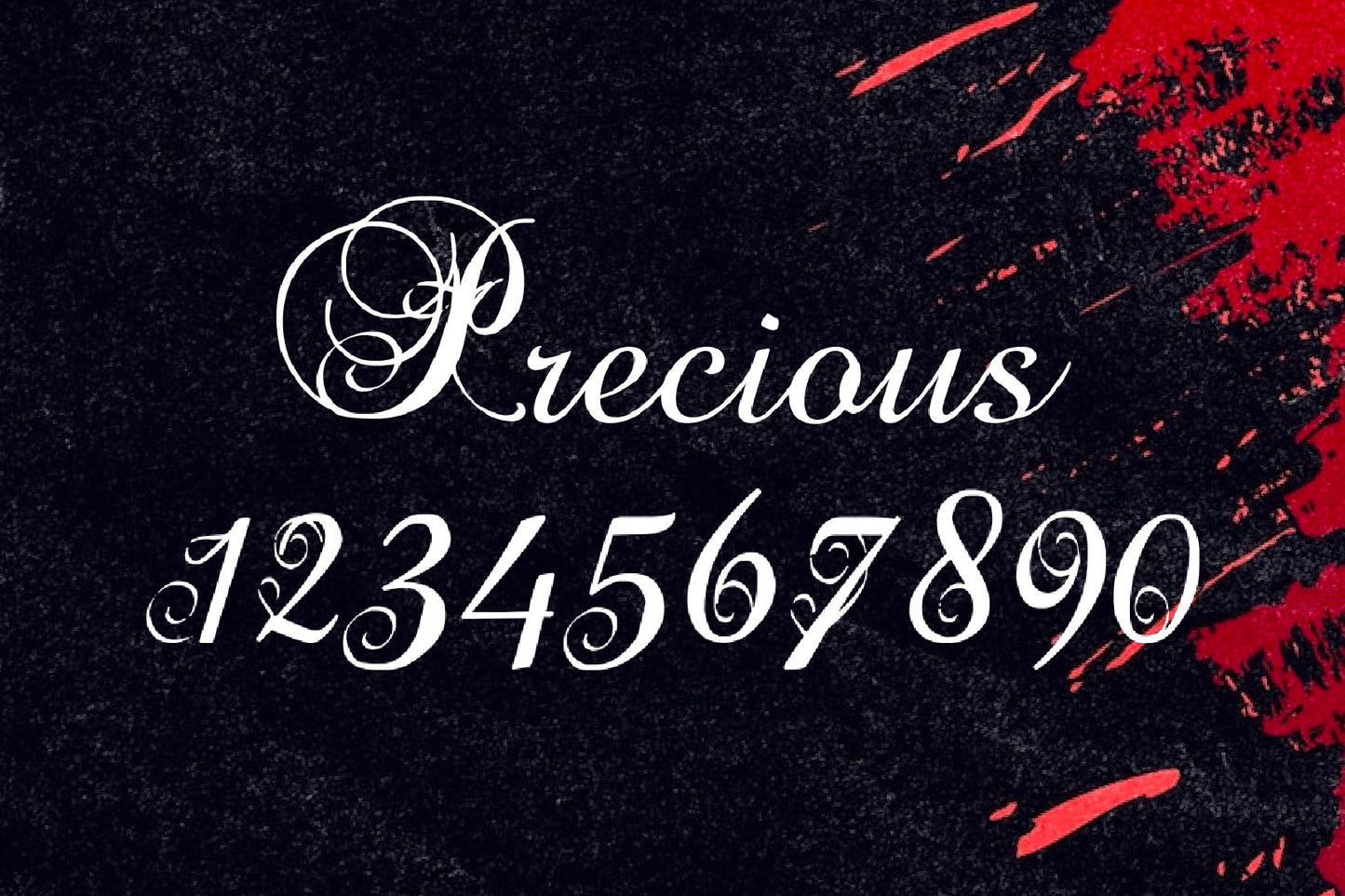
Precious - Free Tattoo Number Font
Here comes one of the best tattoo number fonts called Precious. With its first letter being nothing less than an art gallery itself, this font makes for a perfect tattoo that will make you proud of the fine detailing.